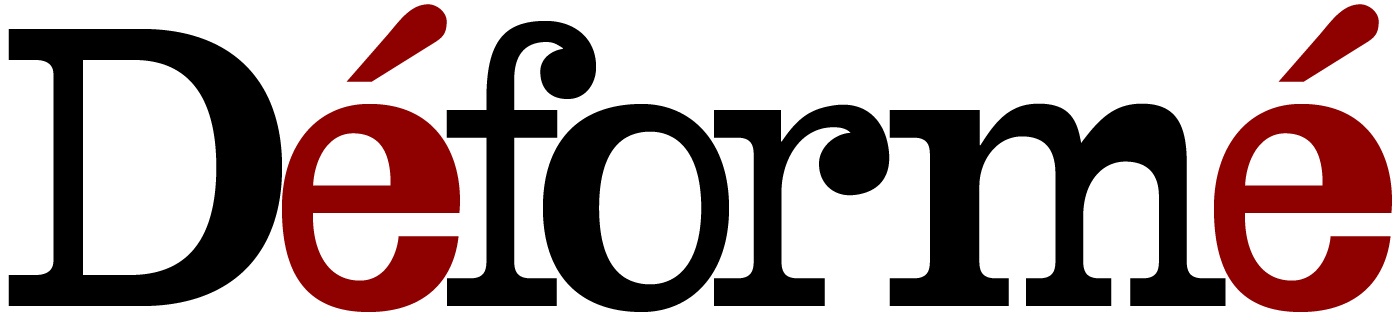
Deforme Font
Deforme Font is perfect for experimental art installations, avant-garde fashion branding, abstract design projects, contemporary art exhibitions, radical creative agencies, unconventional music marketing, artistic rebellion graphics, and disruptive visual communications.
What makes Deforme Font exciting is its artistic rebellion that embodies creative disruption and unconventional expression with experimental character and avant-garde sophistication. The font features distorted letterforms with abstract proportions and deconstructed character variations that evoke artistic experimentation, visual deconstruction, and the bold innovation of contemporary artistic movements and creative rebellion. Its distinctive experimental styling and avant-garde appeal communicate innovation, artistic courage, and creative disruption, making every message feel shaped by artistic vision and touched by the transformative power of experimental design and unconventional artistic expression.
The Deforme Font family includes regular weight with uppercase and lowercase letters, numerals, punctuation marks, and special characters. Premium versions often feature additional distorted alternates and experimental elements that enhance the abstract, avant-garde aesthetic perfect for artistic and creative applications.
The experimental character of Deforme Font makes it particularly valuable for contemporary art galleries, experimental design studios, and avant-garde fashion brands. Its excellent impact ensures artistic messaging and experimental communications capture attention while maintaining the distinctive abstract aesthetic that appeals to audiences seeking authentic contemporary art experiences and creative innovation.
Avant-garde creative marketers appreciate how Deforme Font effortlessly conveys artistic authenticity and experimental sophistication. The font's distorted proportions and abstract details create compelling artistic materials that establish connections with audiences who value creative experimentation, artistic rebellion, and the deconstructed beauty of contemporary artistic expression and avant-garde design.
The versatile experimentation of this typeface extends to abstract art education, creative research, and artistic innovation where experimental authenticity enhances artistic credibility and avant-garde appeal. Deforme Font Free Download provides creative professionals with an essential tool for developing memorable, innovation-driven designs that resonate with audiences who embrace experimental art, creative rebellion, and the transformative power of deformed artistic expression in their contemporary art and creative experiences.